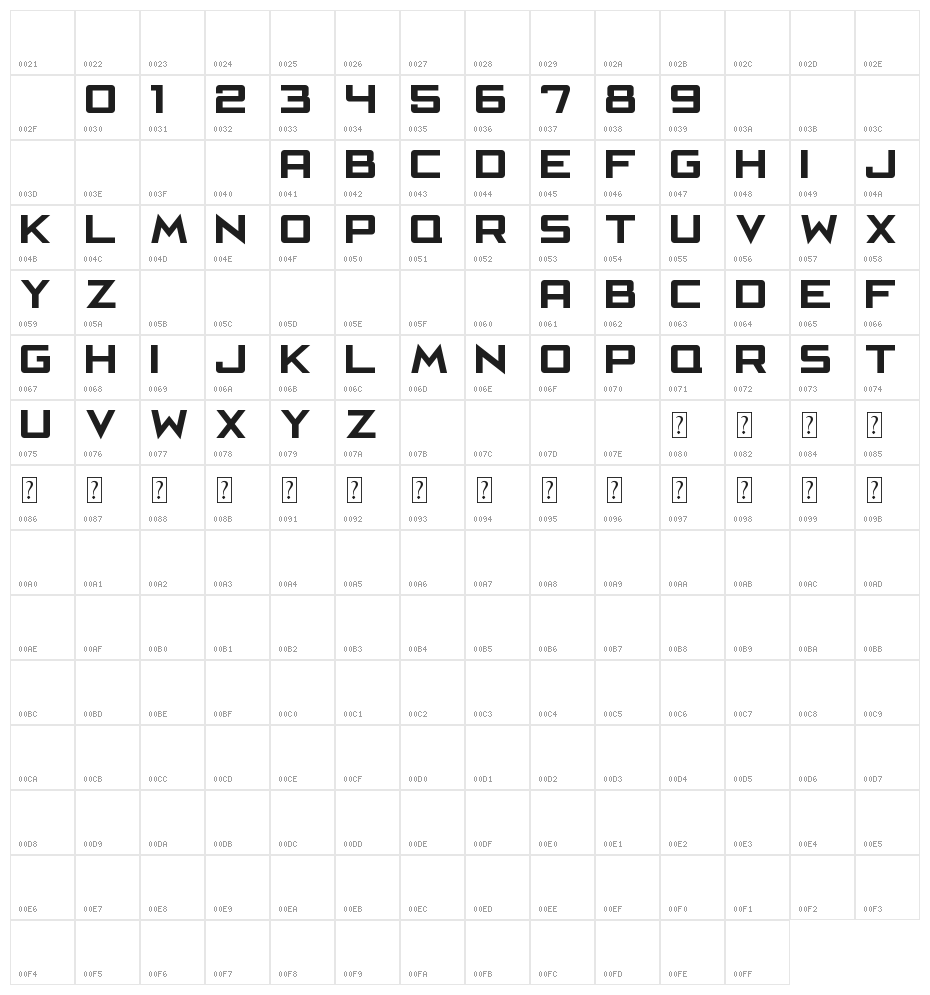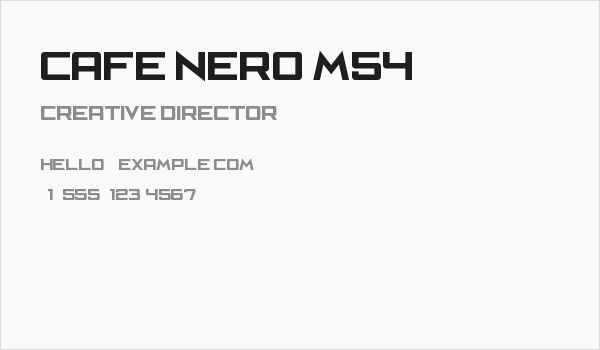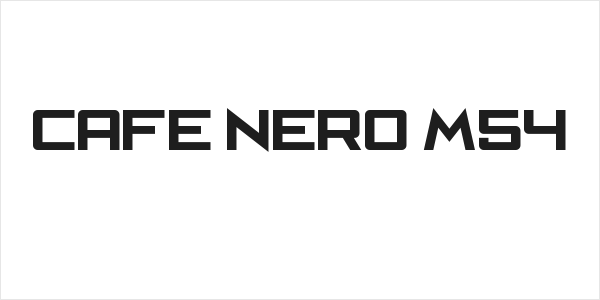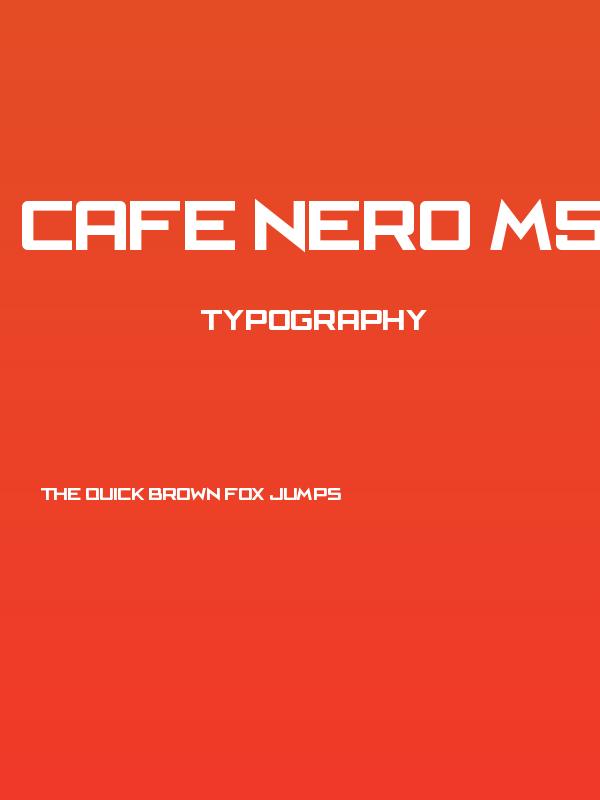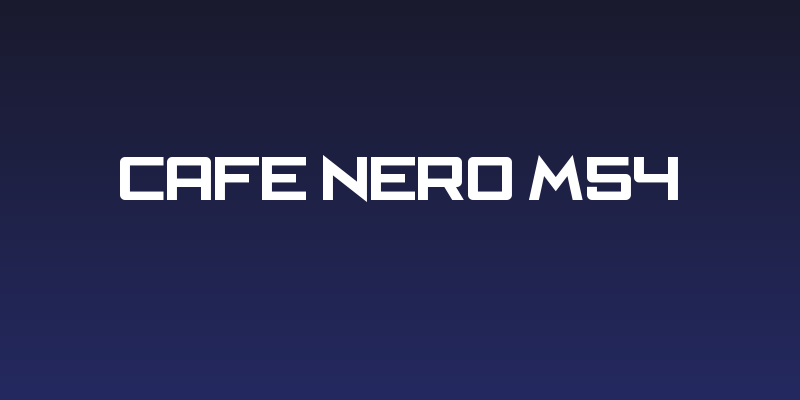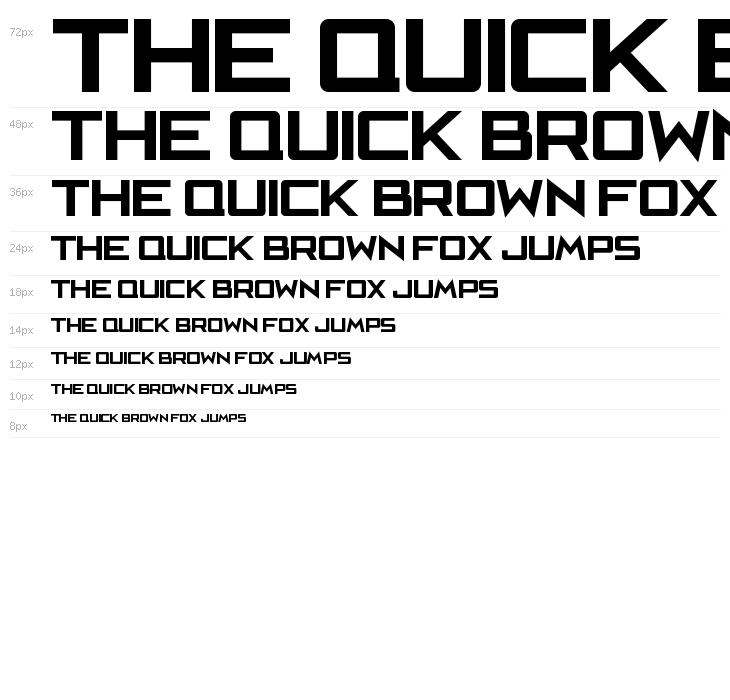
Cafe Nero M54 Font
Cafe Nero M54 Description
This font features a bold, geometric design with a modern and futuristic aesthetic. The characters are constructed with sharp angles and straight lines, giving them a technical and precise appearance. The uppercase letters are uniform in height, while the numerals maintain a consistent style that complements the alphabet. The overall look is clean and structured, making it suitable for projects that require a contemporary and professional feel. The font's distinct style is ideal for creating impactful headlines and logos.
| Proposed Projects | Ideal for technology branding, modern advertising campaigns, and sci-fi themed designs. |